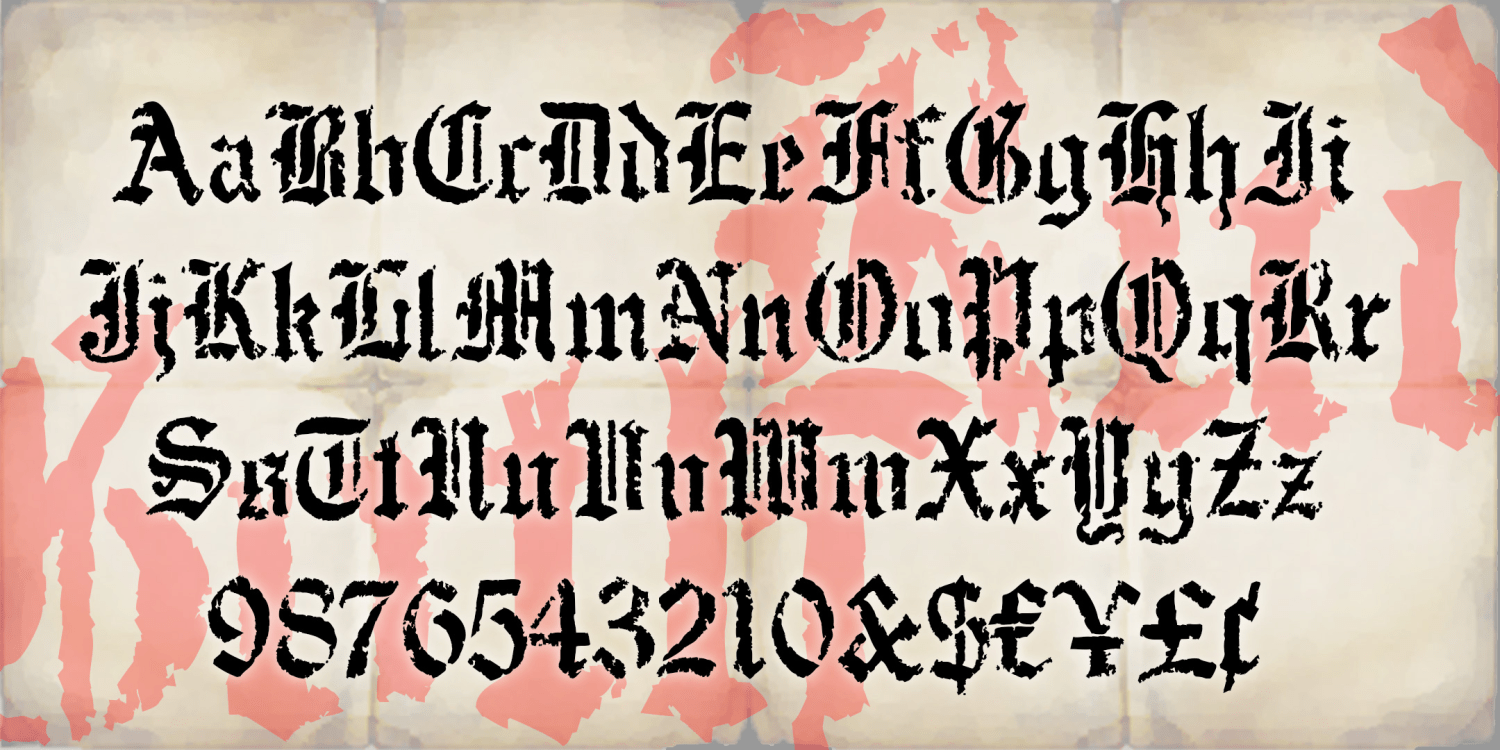
Rude Goth
About Rude Goth
RUDE GOTH is a bold and rustic blackletter font. I began with a set of "Old English" stencils and used a natural sponge to print them and get an authentic texture. It's Goth, but also for perfect for a Halloween, pirate, or rough historic…